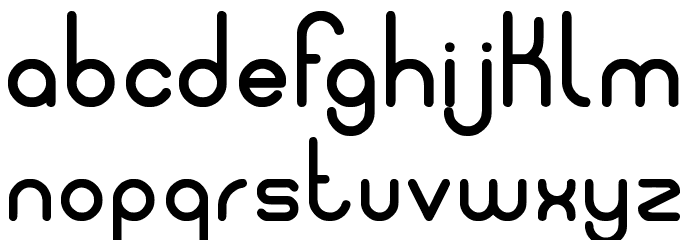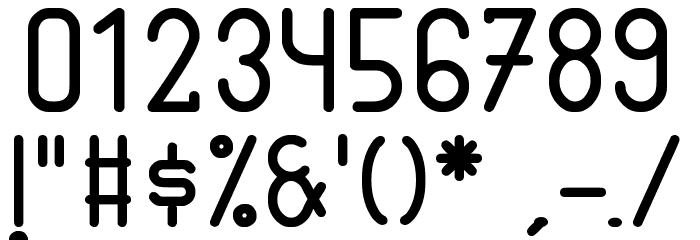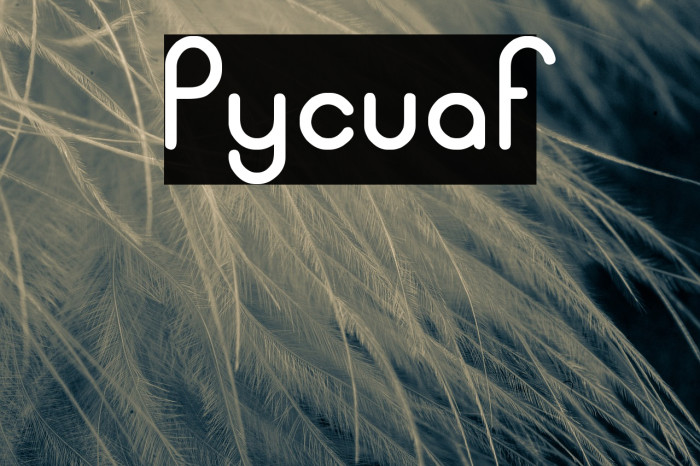
Pycuaf Font
This font features a rounded, geometric style with uniform stroke widths, giving it a modern and approachable appearance. The characters are clean and minimalistic, with a consistent line weight that maintains readability across various sizes. The rounded edges and smooth curves contribute to a friendly and inviting look, making it suitable for a wide range of applications. The numerals and special characters are designed to match the overall aesthetic, ensuring a cohesive visual experience. This font balances simplicity with a touch of playfulness, making it versatile for both digital and print media.
A modern, rounded geometric font with uniform strokes and a friendly appearance.
- Proposed Projects: Ideal for branding, advertising, children's books, digital interfaces, and casual print materials.
- Use Case: Headlines, Logos, Digital interfaces